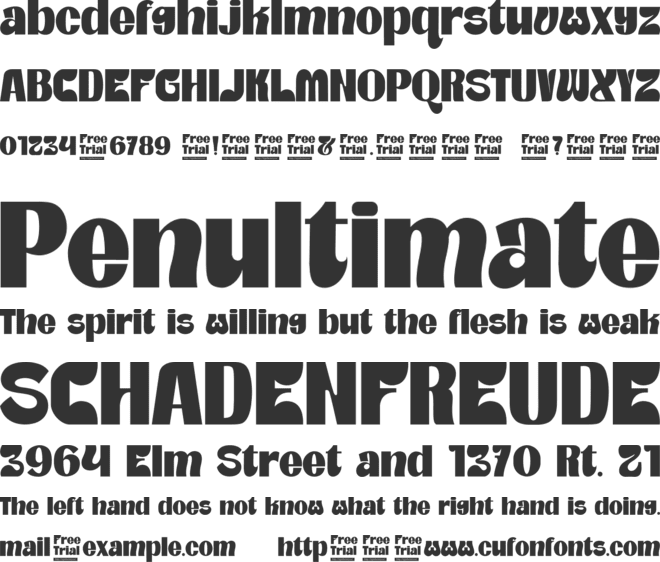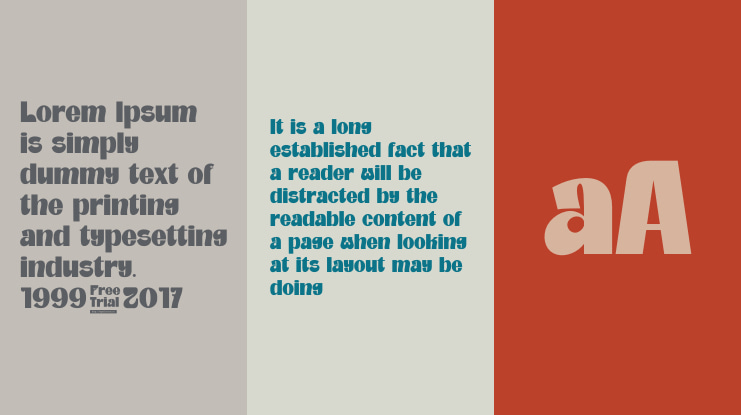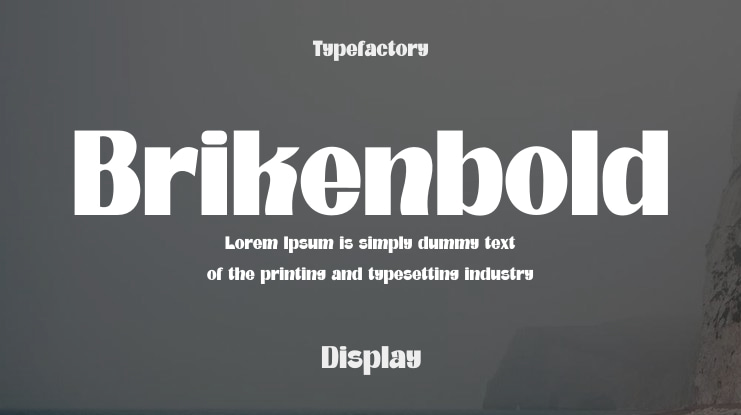
Brikenbold Font
Introducing Briken Bold, a modern display font crafted by Type Factory, now available as a prime choice for your design needs. With its unique and bold Sans characteristics, Briken Bold is the perfect option for creating a daring, contemporary, and unforgettable visual identity.
Briken Bold is more than just a font; it's a statement. Each glyph is meticulously designed to exude a strong yet elegant aesthetic, making it ideally suited for:
- Logo Design: Give your brand a distinctive and memorable look.
- Headlines & Titles: Create eye-catching titles for posters, magazines, or websites.
- Branding & Advertising: Perfect for modern advertising campaigns that demand visual impact.
- Product Packaging: Ensure your product stands out on the shelf with captivating typography.
- Editorial & Web Design: Enhance the visual appeal of your content.